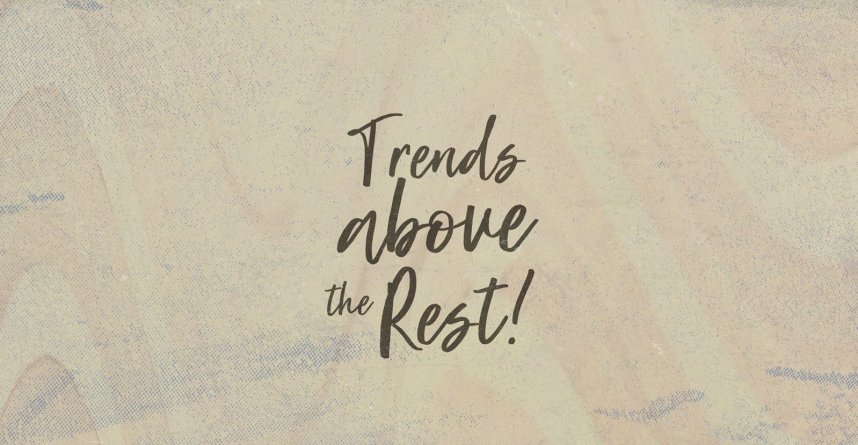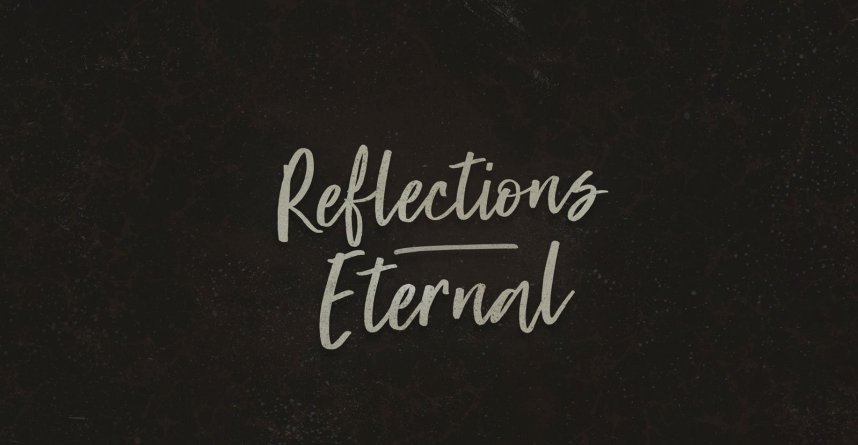
Super Natural Script Font
Super Natural – Free Demo
Continue to be a typography designed by professional BLKBK designer. Introducing Super Natural Script Font. Every single letters have been carefully crafted to make your text looks beautiful. With lettering script style this font will perfect for many different project ex: quotes, blog header, poster, wedding, branding, logo, fashion, apparel, letter, invitation, stationery, etc.